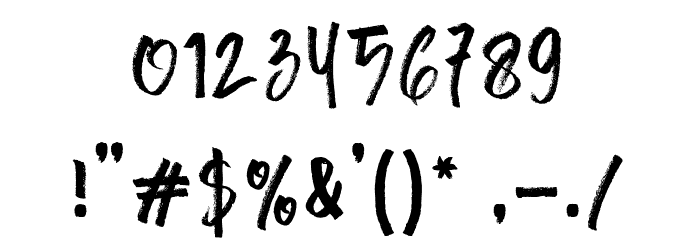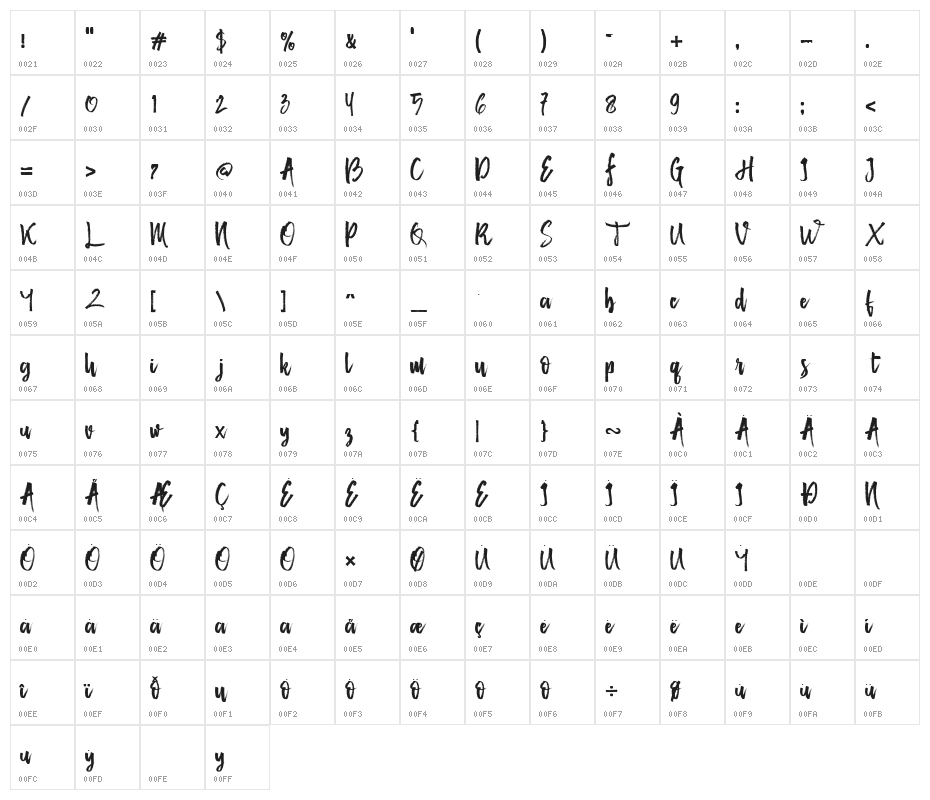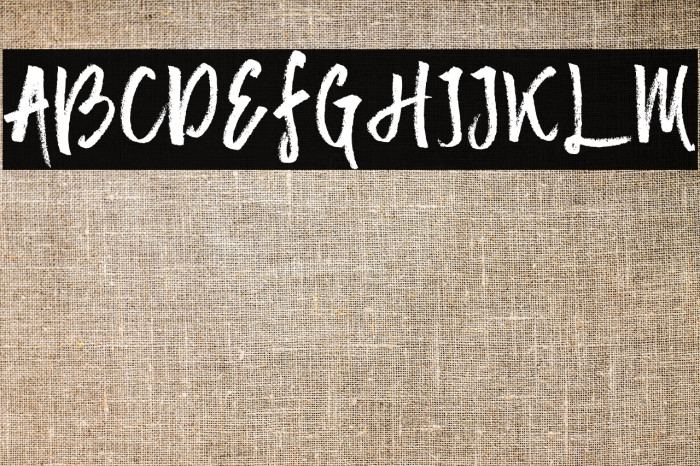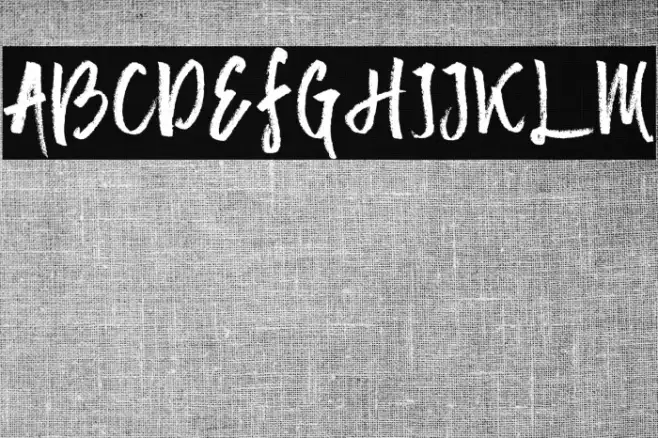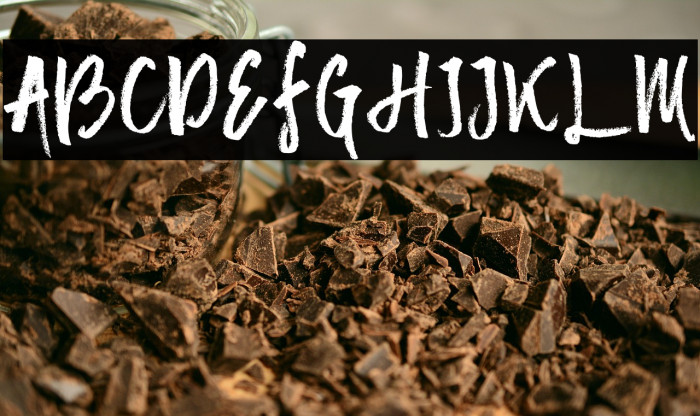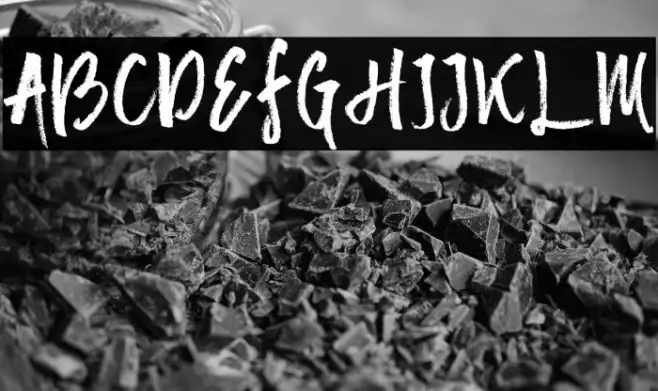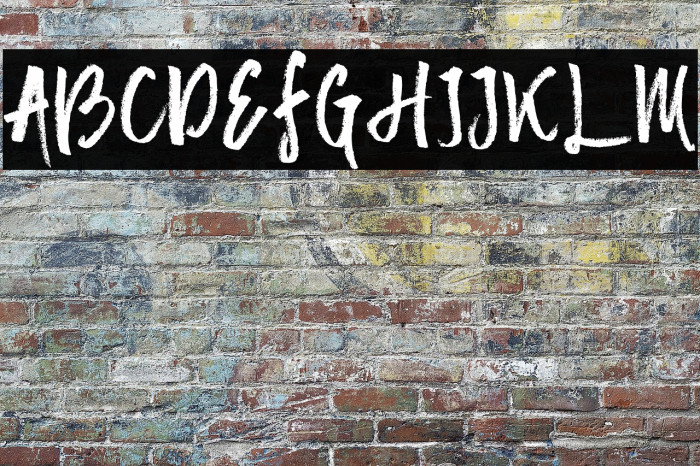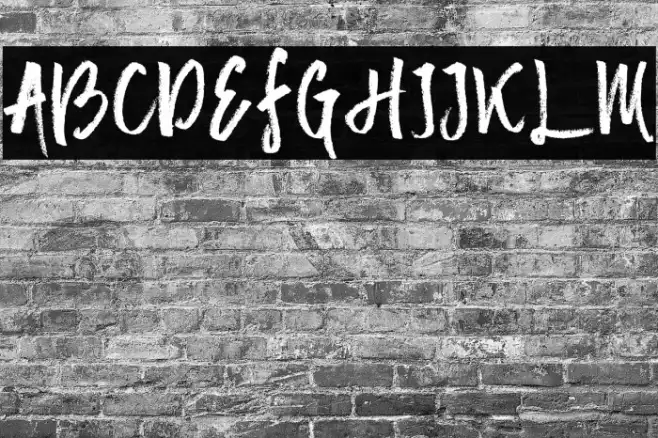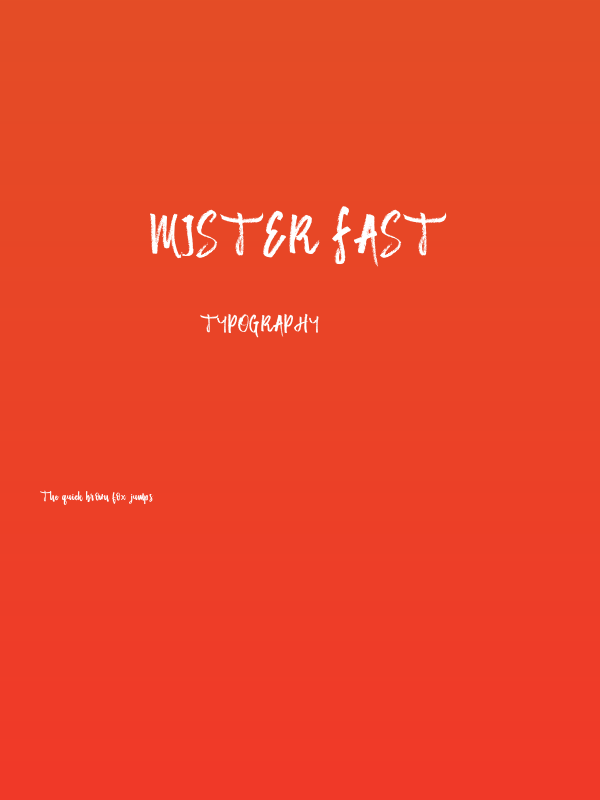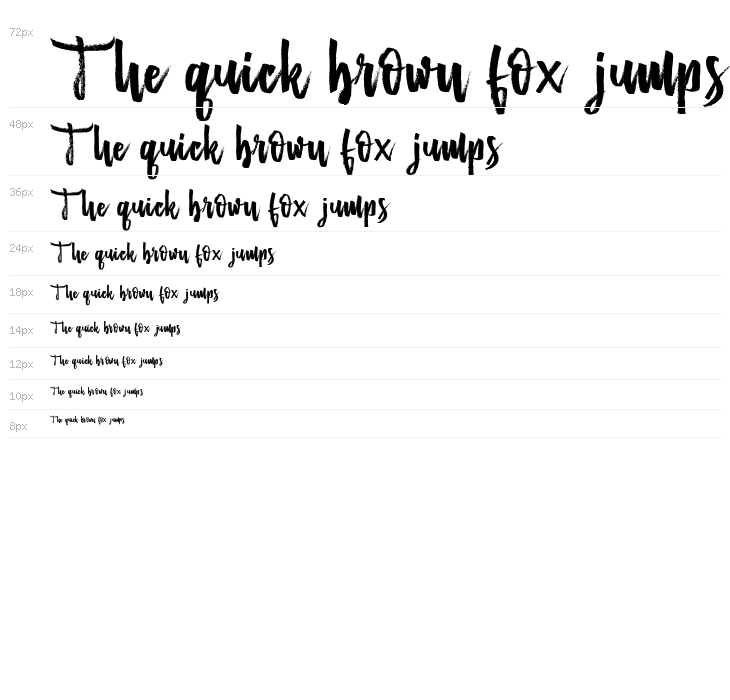
Mister Fast Font
Mister Fast Description
This font features a bold and expressive handwritten style, characterized by its brush-like strokes and dynamic flow. The uppercase letters exhibit a strong presence with their thick, textured lines, while the lowercase letters maintain a consistent fluidity, adding a personal touch to the text. Numbers and special characters follow the same energetic style, making the font versatile for various creative applications. The overall appearance is both artistic and modern, suitable for projects that require a touch of individuality and flair.
| Proposed Projects | Ideal for branding, invitations, posters, and social media graphics. |